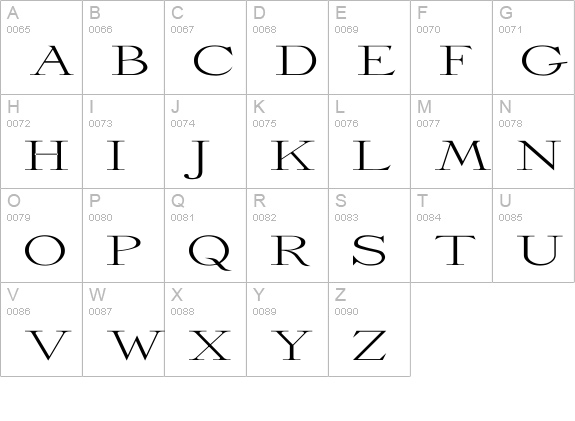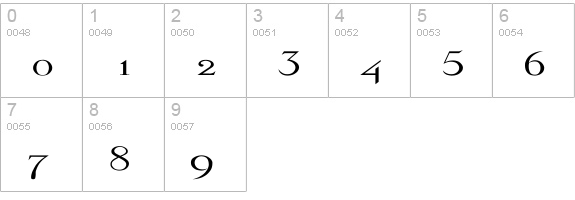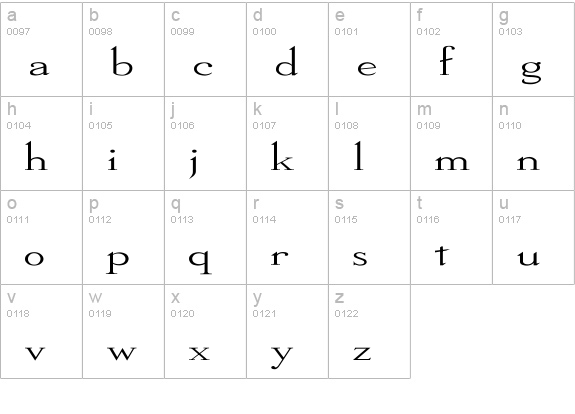
Dickens Ex font is a stunning display typeface that exudes elegance and charm. With its intricate details and classic appeal, this font is perfect for adding a touch of sophistication to any design project. The timeless beauty of Dickens Ex font makes it a versatile choice for a wide range of applications, from branding to editorial design. Best of all, Dickens Ex font is completely free to download at FontsMarket.com. This means you can access this exquisite font without any cost, making it a valuable addition to your font collection. Whether you're working on a print project or a digital design, Dickens Ex font will elevate your work with its unique style and grace. Download it now and start creating beautiful designs with this exceptional typeface.